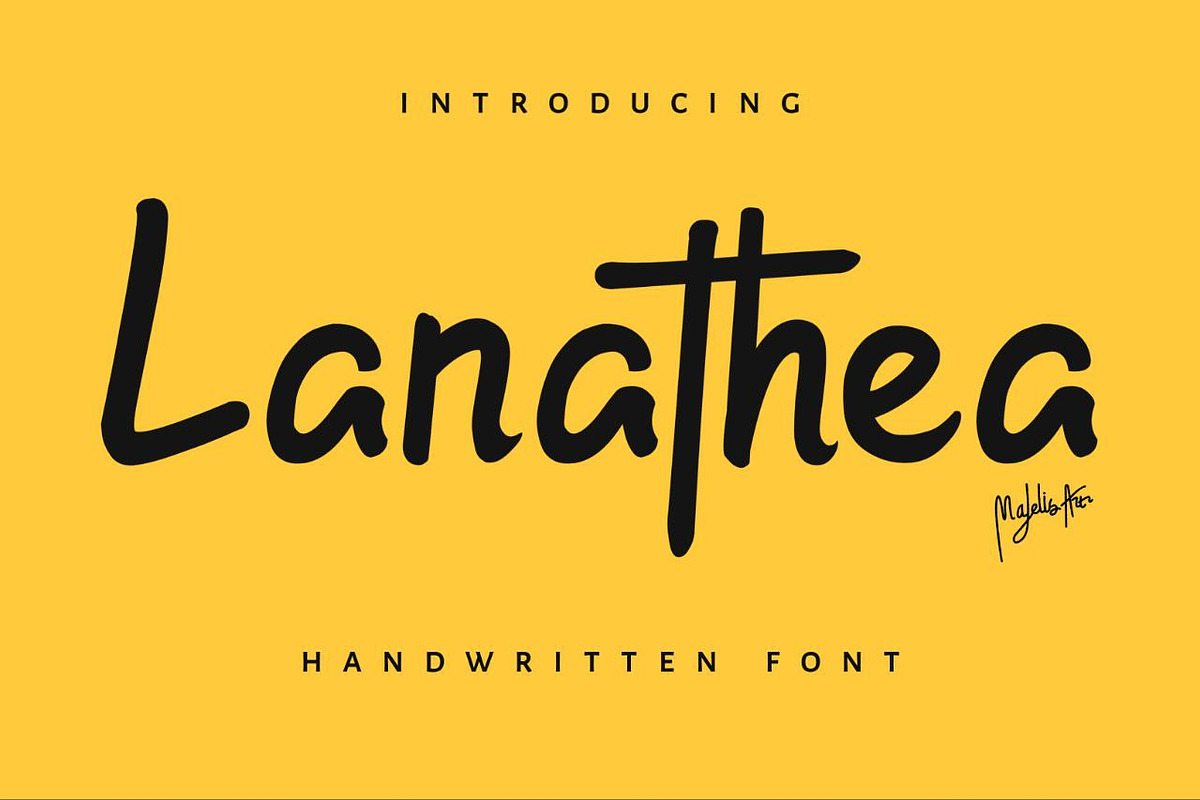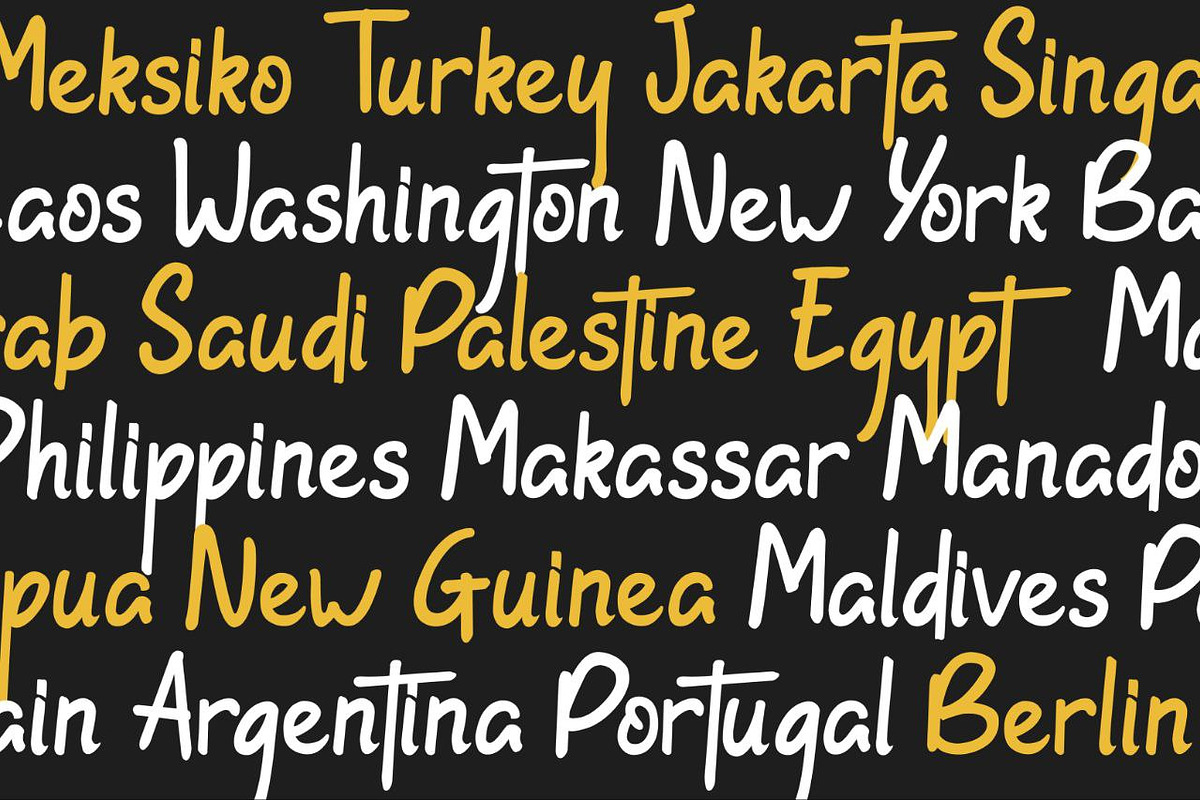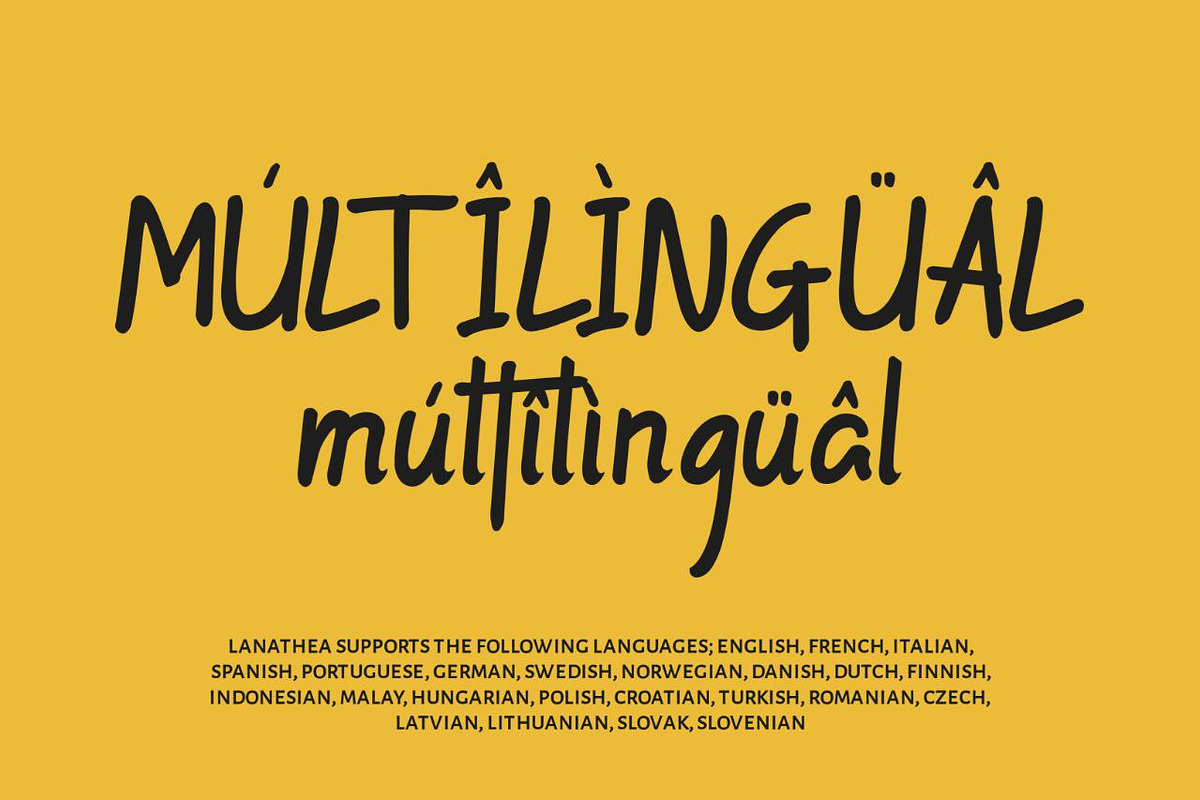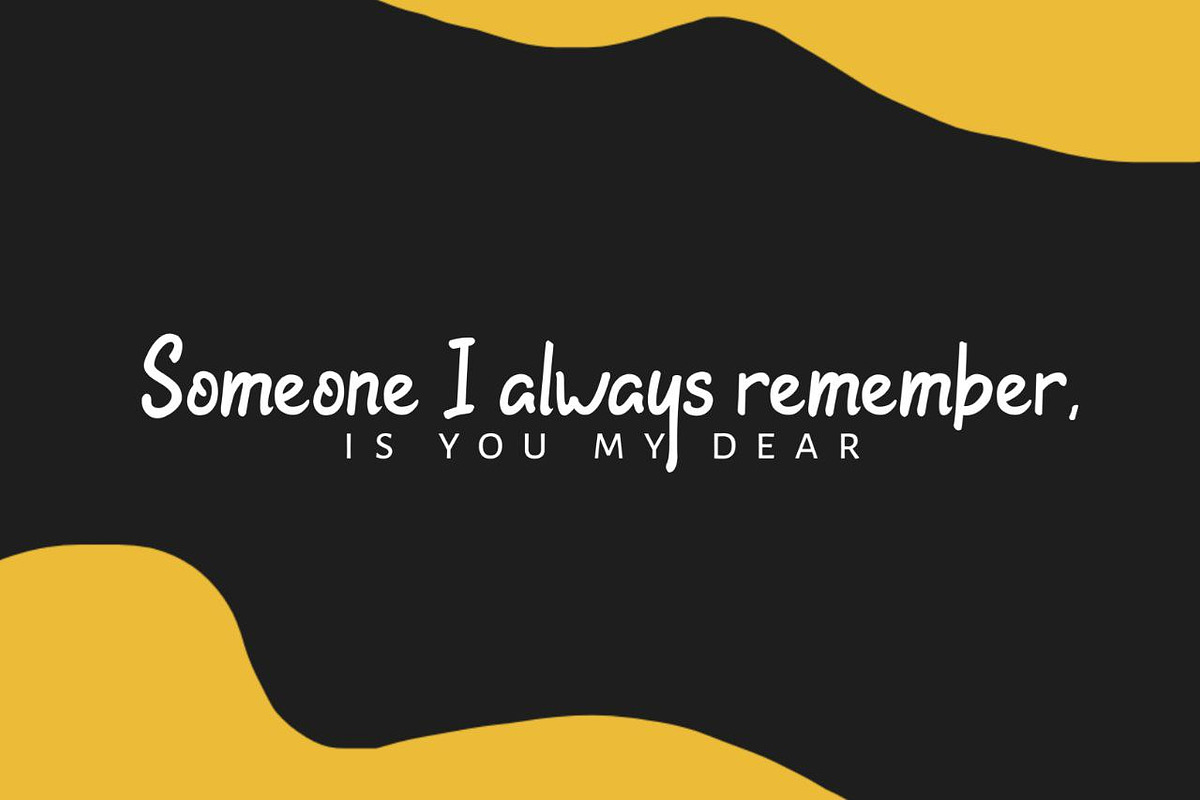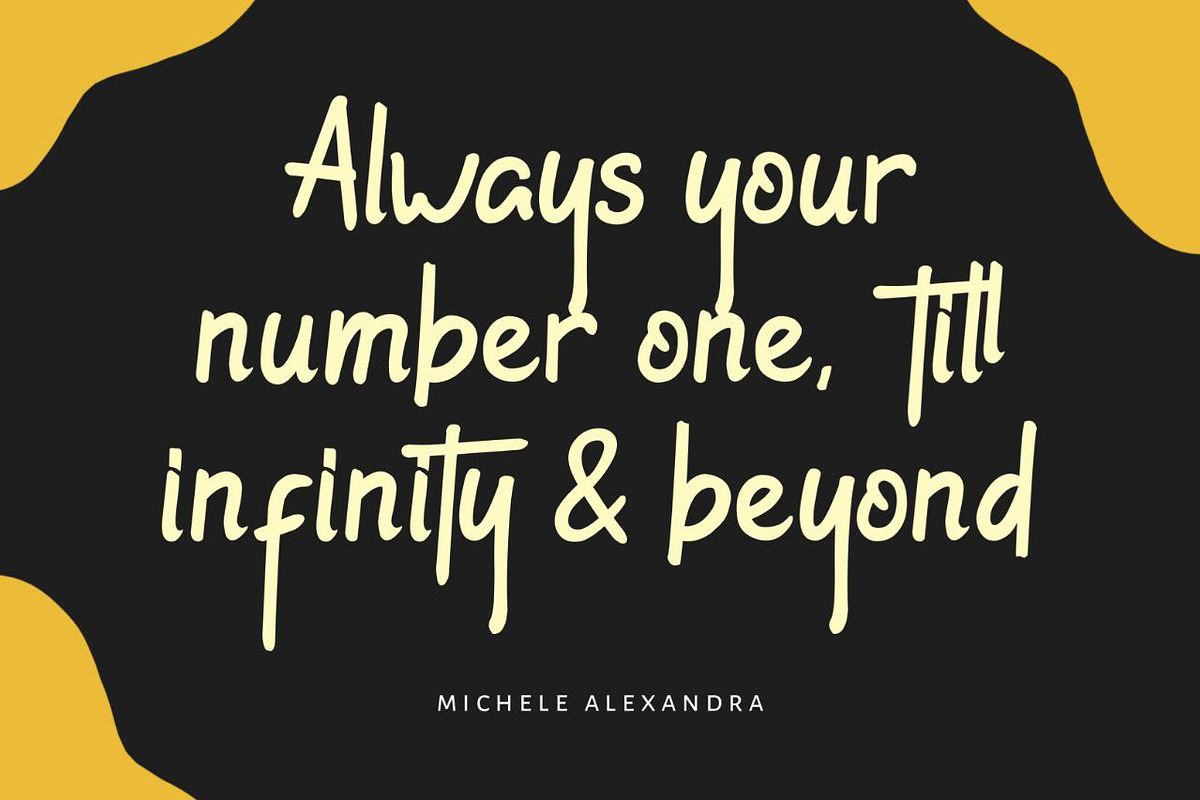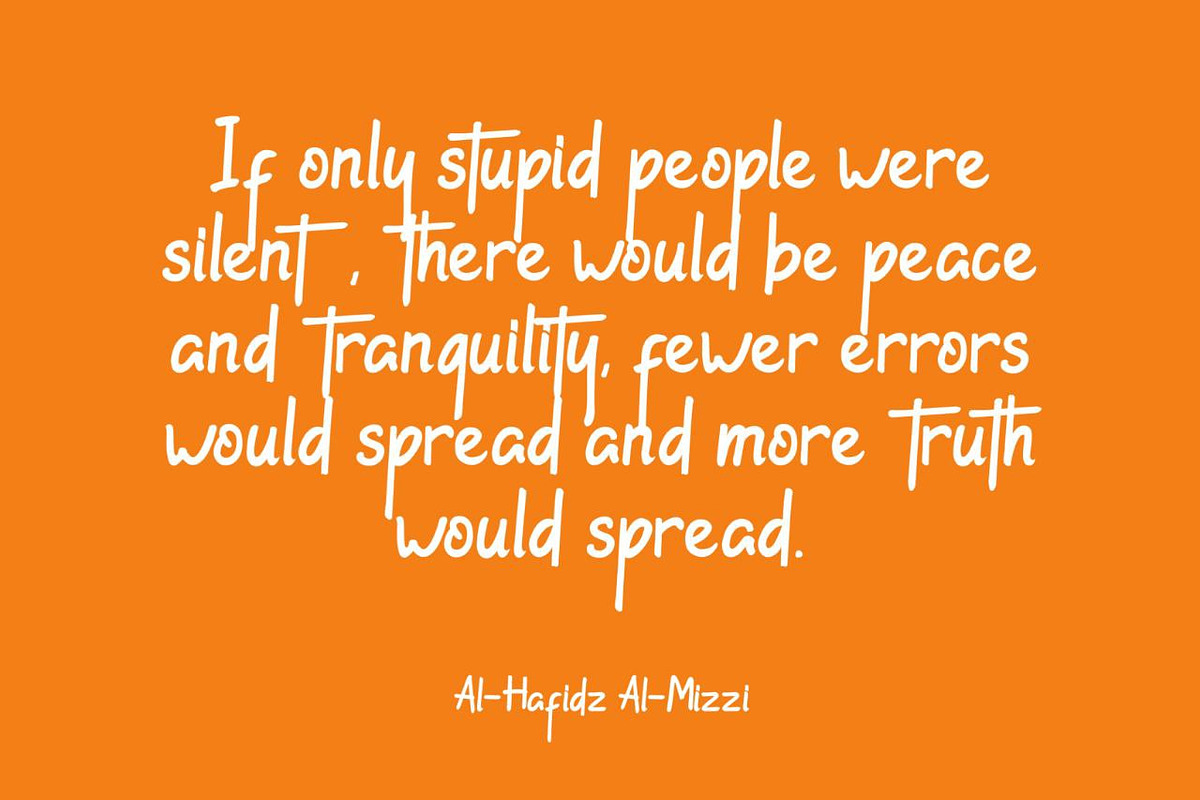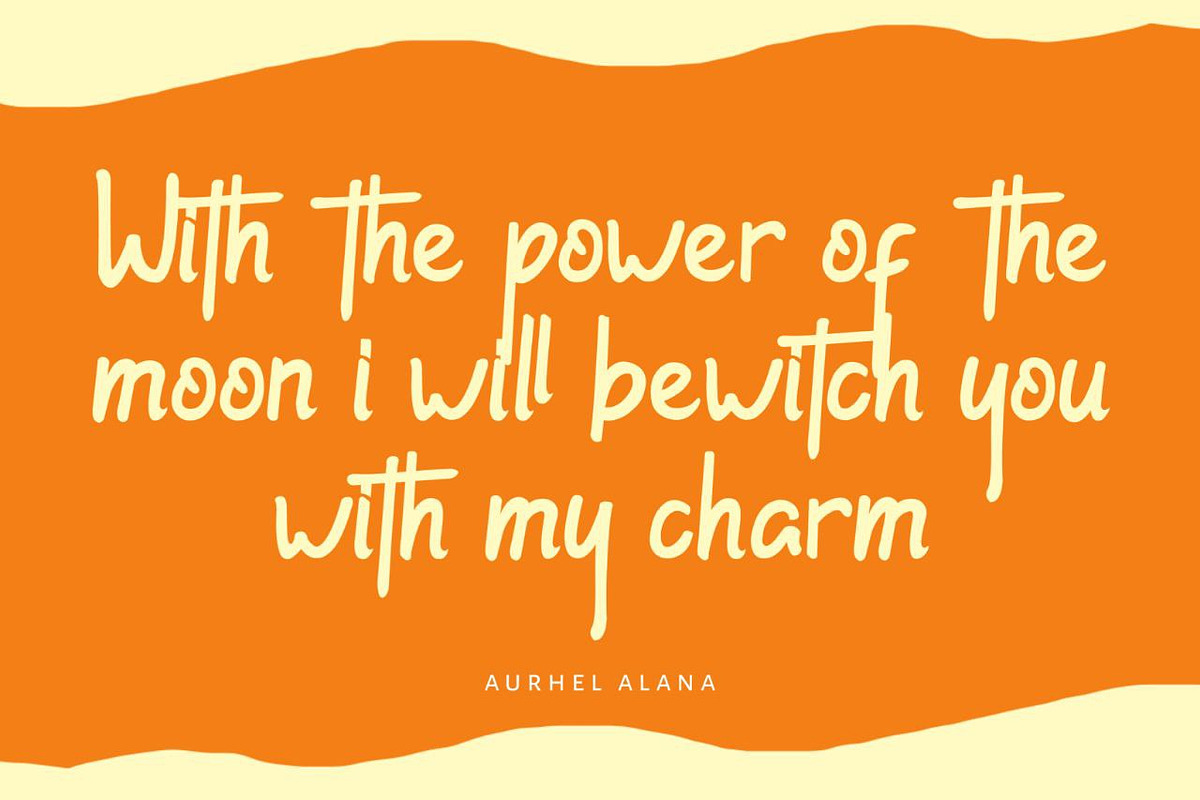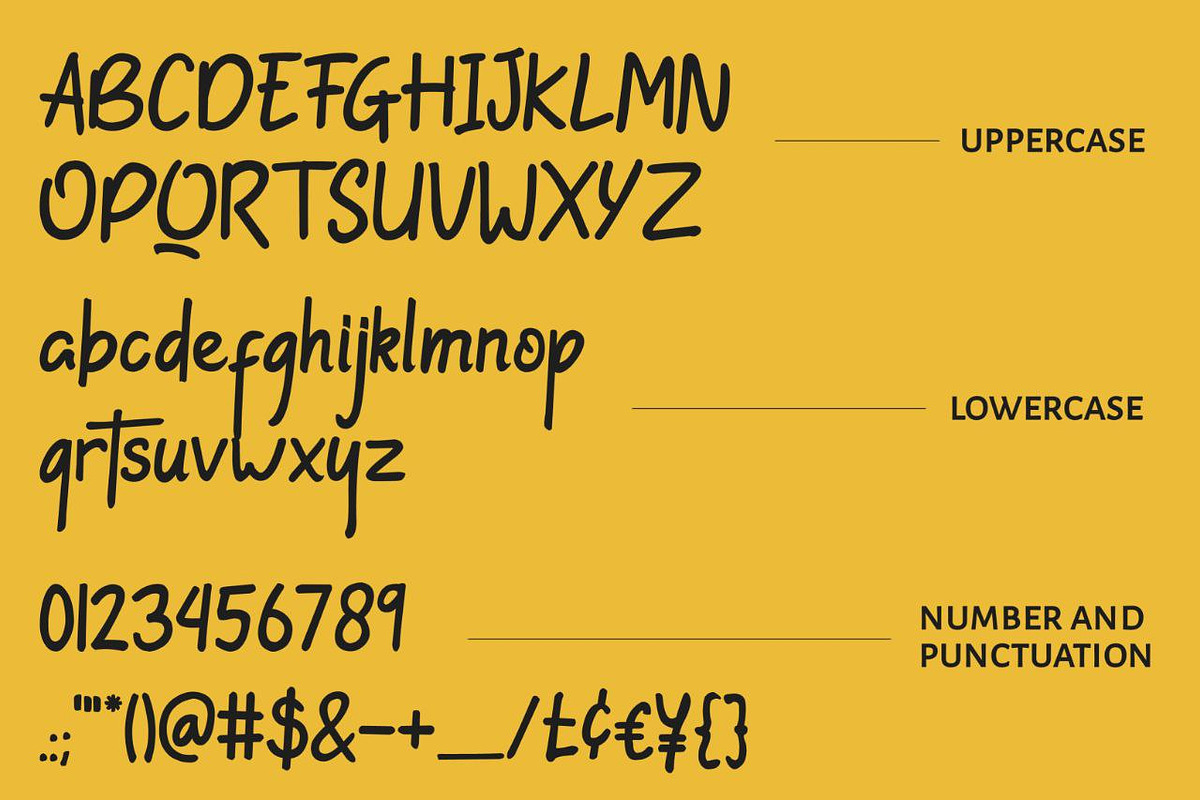
Lanathea
Lanathea font is made from colored marker carvings that create curves on each letter. This font is perfect for entrepreneurs to make banners and logos that are displayed in front of their stores, And it will be a uniqueness, advantage and benefit for entrepreneurs. This font is also very suitable for use on book covers, animated film titles, and various types of foreign products.
- A little addition from Ligature